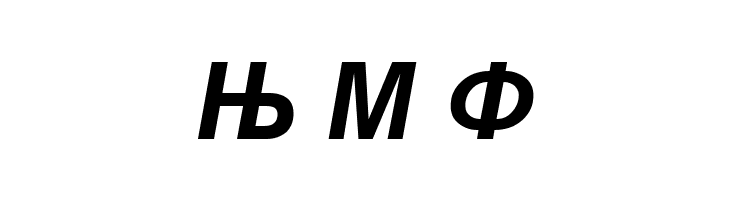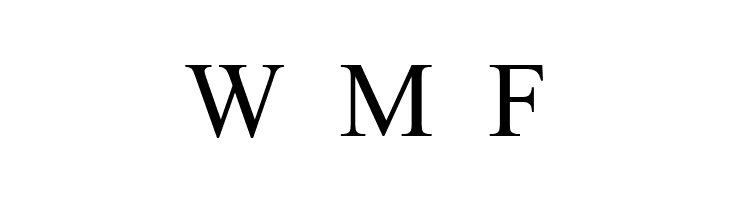
A classic serif font with elegant strokes and multilingual support.
A thin, modern font supporting the Myanmar script with a clean and minimalist design.
A modern, clean sans-serif typeface designed for clarity and readability.
A light, semi-condensed serif font with clean and modern characteristics.
A clean, geometric sans-serif font optimized for UI clarity.
A serif font supporting Georgian script, extra condensed and medium weight for clear readability.
Bold, condensed sans-serif font for multilingual use.
A semi-bold, extra-condensed serif font.
A semi-condensed, extra light serif font with refined, thin strokes.
Semi-condensed, modern sans-serif with balanced proportions.
Minimalist sans-serif font optimized for UI clarity.
A modern sans-serif font supporting Telugu script with clean, legible design.
A medium weight, extra condensed font designed for clarity and space efficiency, ideal for Khmer script.
Modern sans-serif with semi-bold weight and excellent clarity.
A thin, semi-condensed serif font with a refined and minimal look.
A bold, geometric font with a futuristic and dynamic style.
A bold, modern sans-serif font with clean lines and Thai script support.
A dynamic oblique font with artistic swashes and moderate contrast.
Semi-condensed sans-serif font with medium weight.
A modern sans-serif typeface with clean lines and excellent readability.
Extra condensed Hebrew serif font with medium weight.
A bold, extra-condensed font with tight spacing and a modern style.